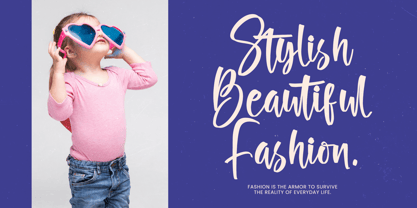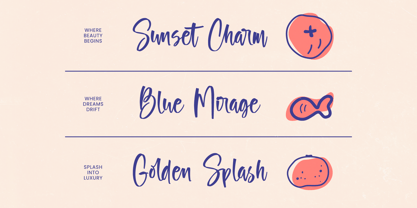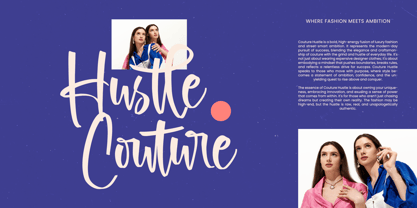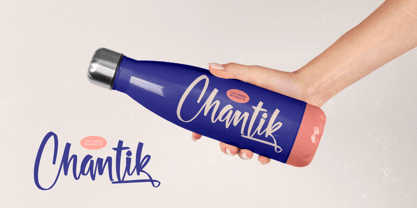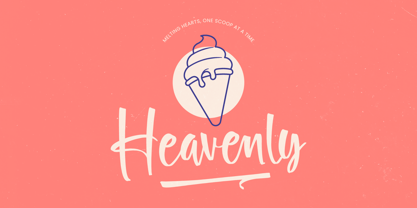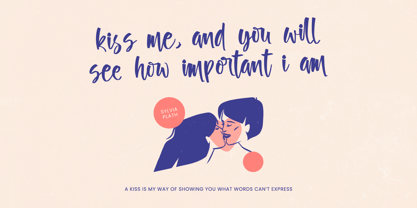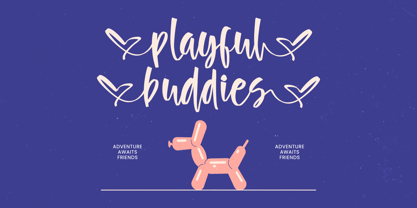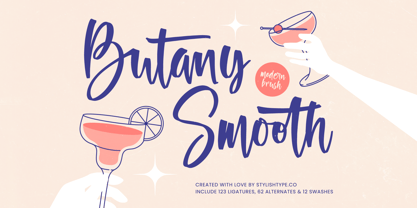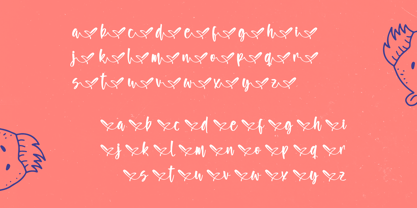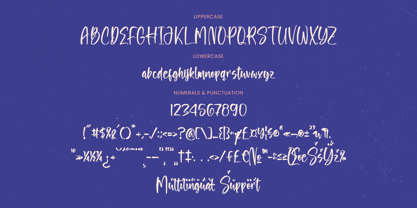
Butany Smooth
by Stylishtype Studio
The Butany Smooth Font Family was designed by Heru Utama Putra and published by Stylishtype Studio. Butany Smooth contains 2 styles and family package options.
Butany Smooth - Modern Brush Font, Butany Smooth is a modern brush script with smooth strokes, dynamic curves, and a casual hand-lettered feel crafted for branding that wants to look warm, friendly, and irresistibly inviting. Each letter flows with natural movement, supported by 123 ligatures, 62 alternates, and 12 swashes that let you build expressive logotypes, stylish packaging, social media visuals, café menus, and creative promotional designs with ease. Its balanced contrast and clean handmade texture give every word an authentic charm—perfect for lifestyle brands, modern boutiques, personal projects, and playful headline compositions that need a fresh, energetic script.